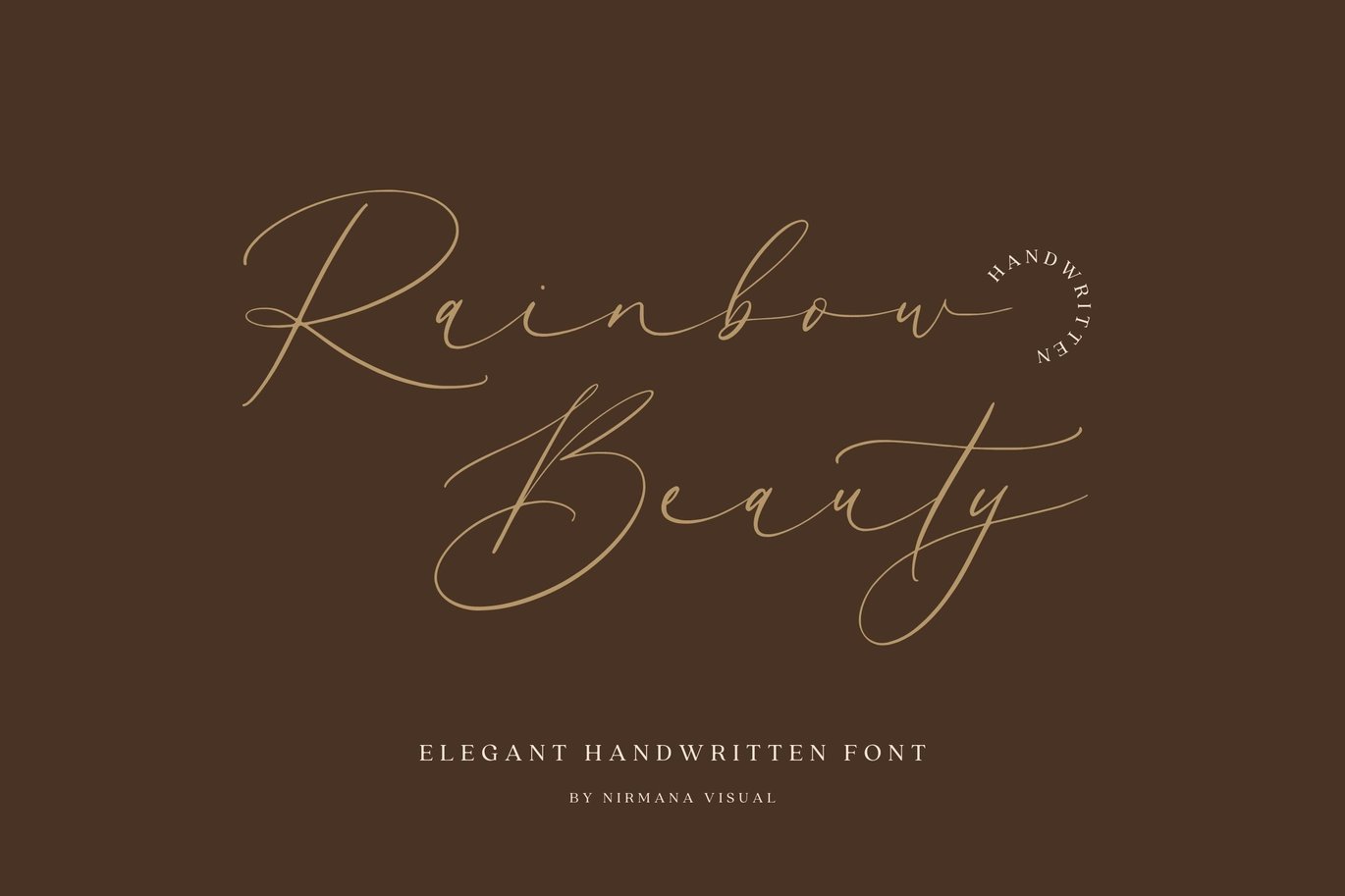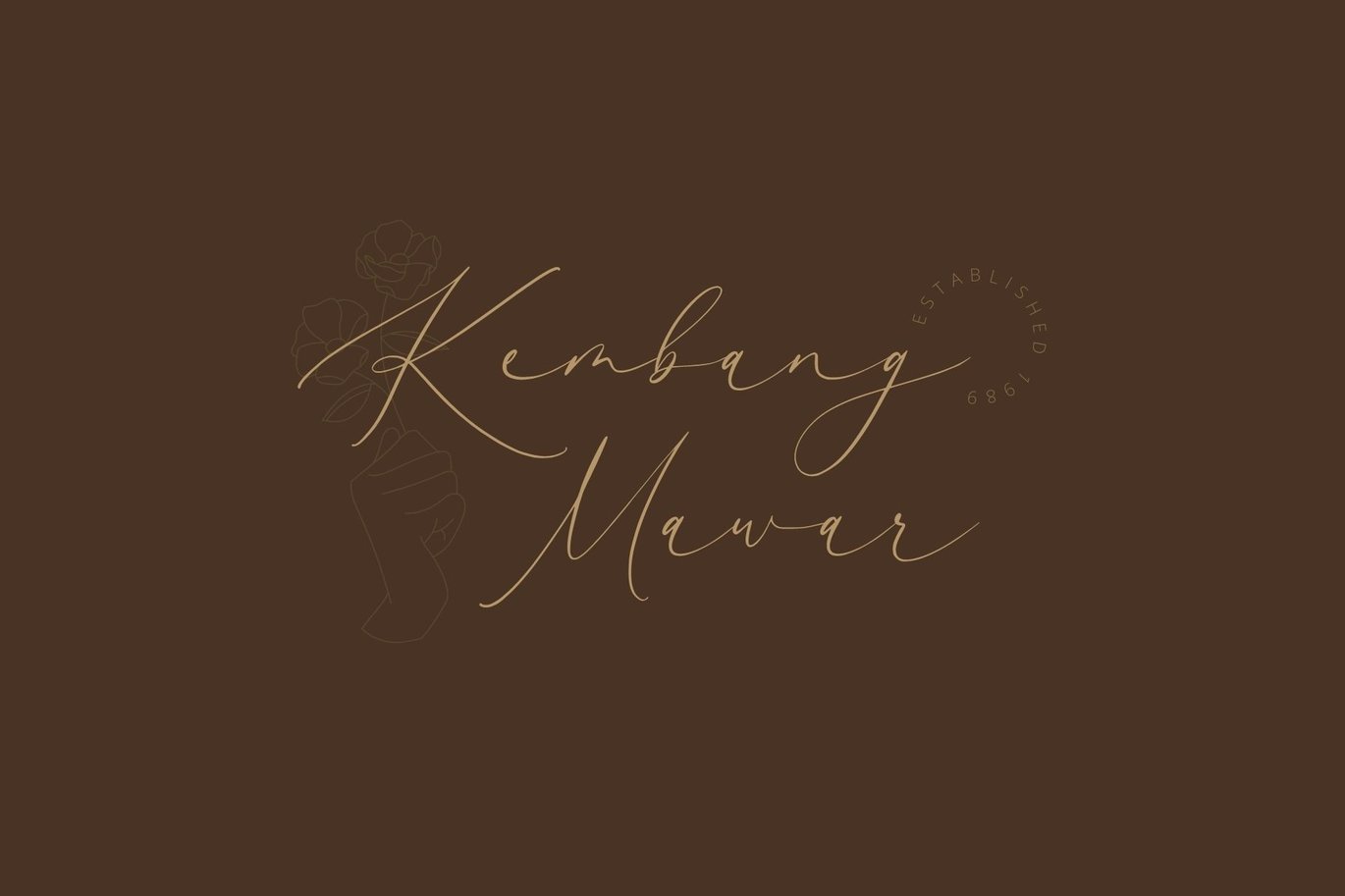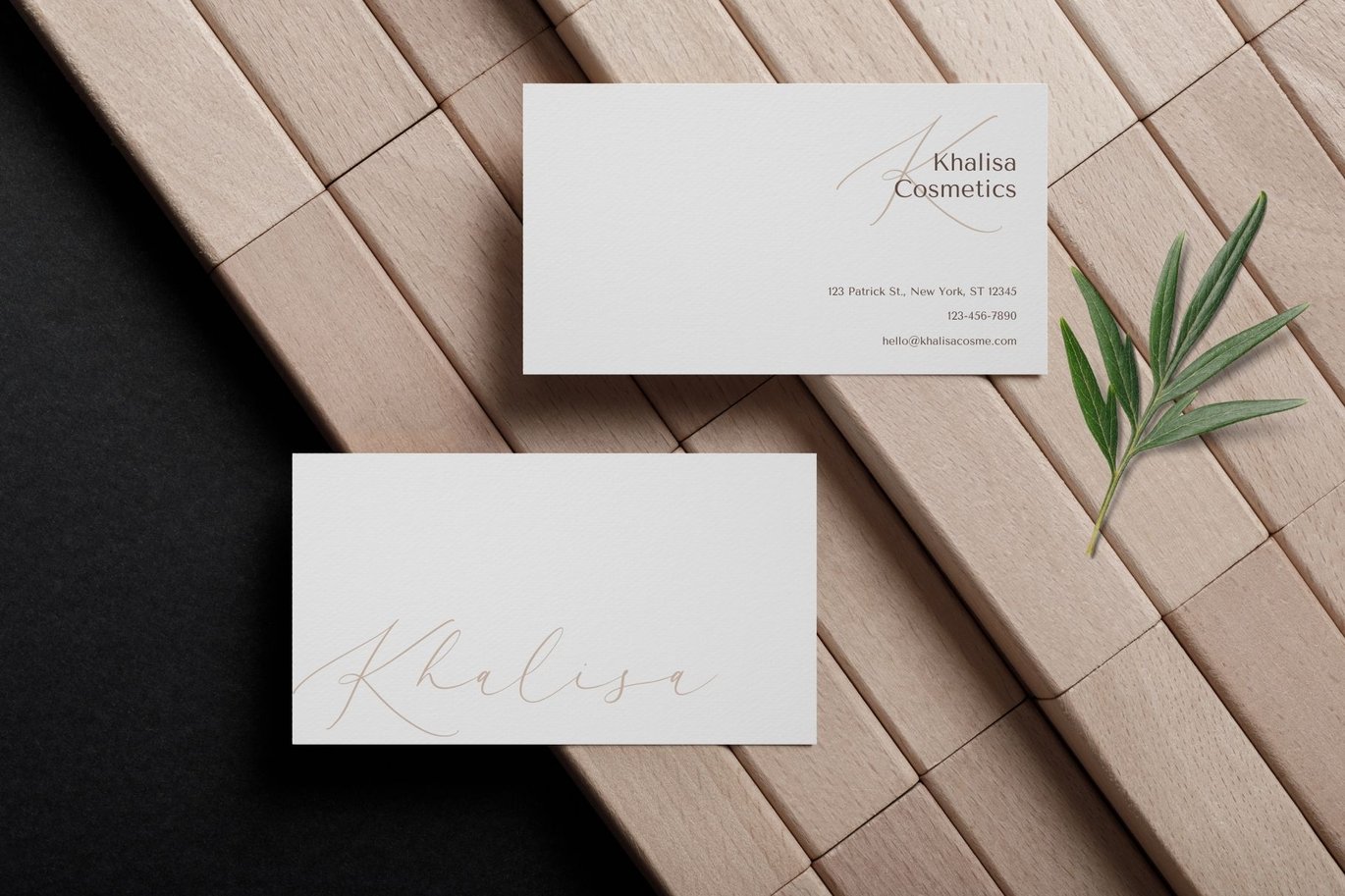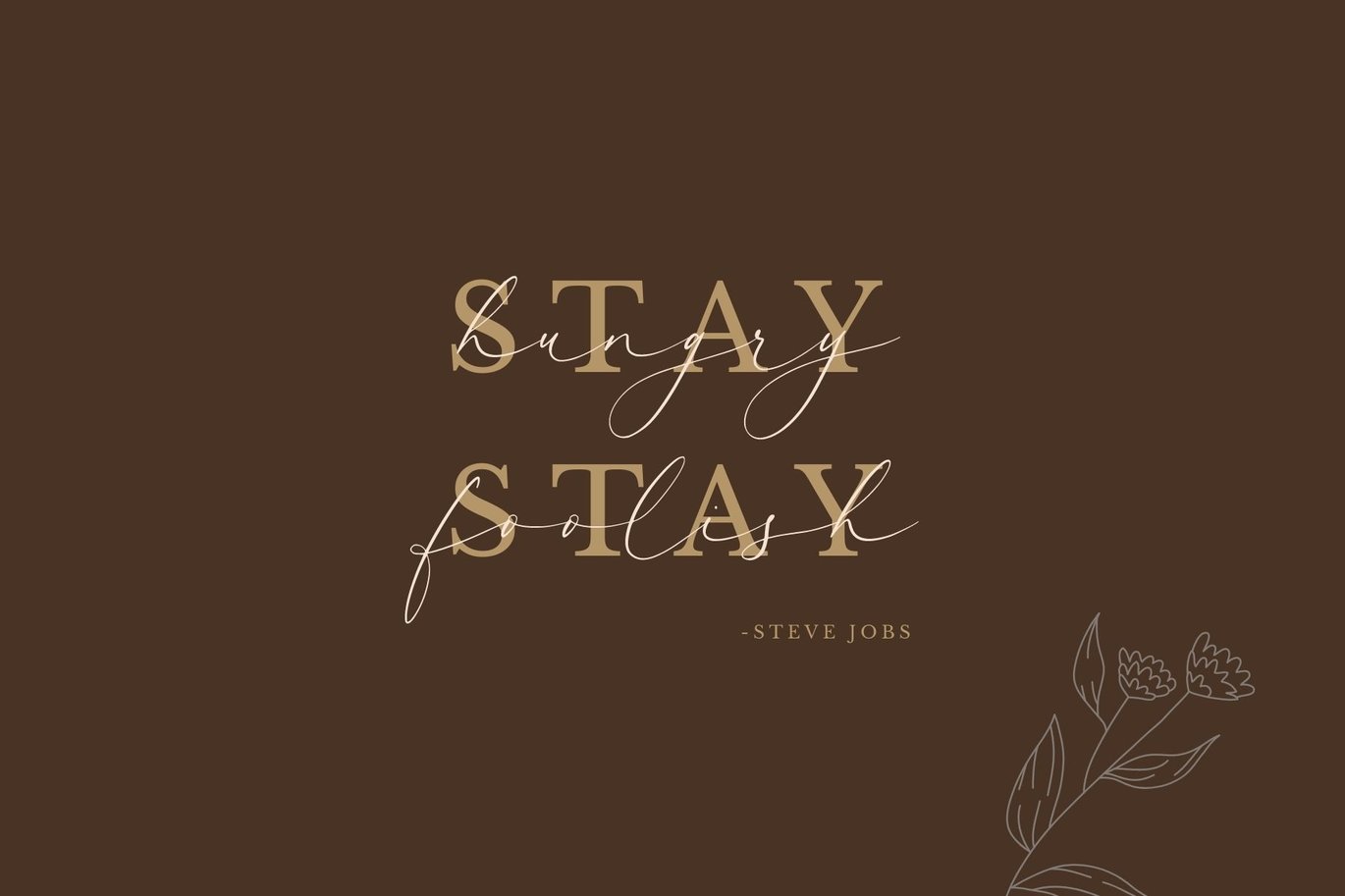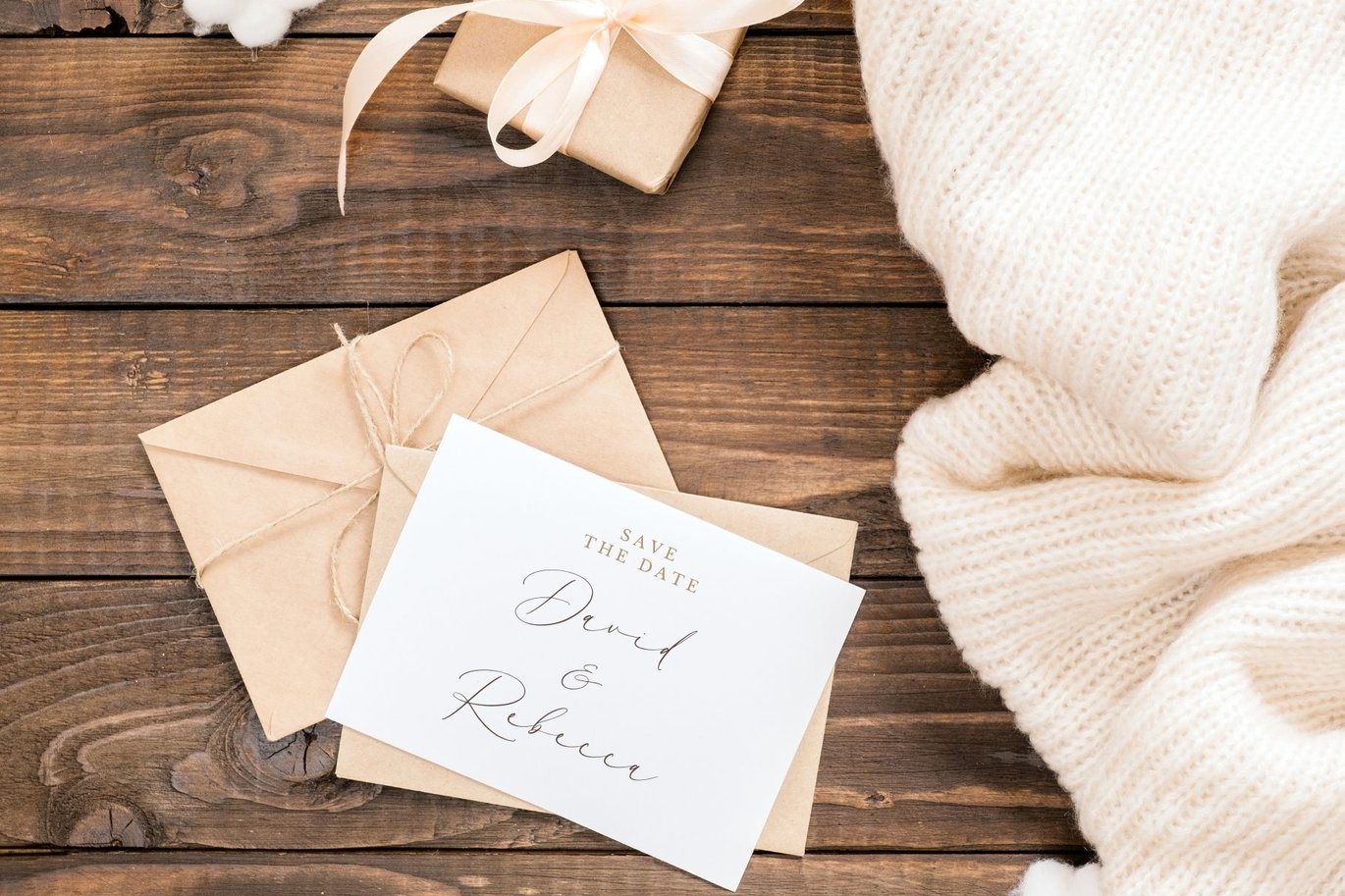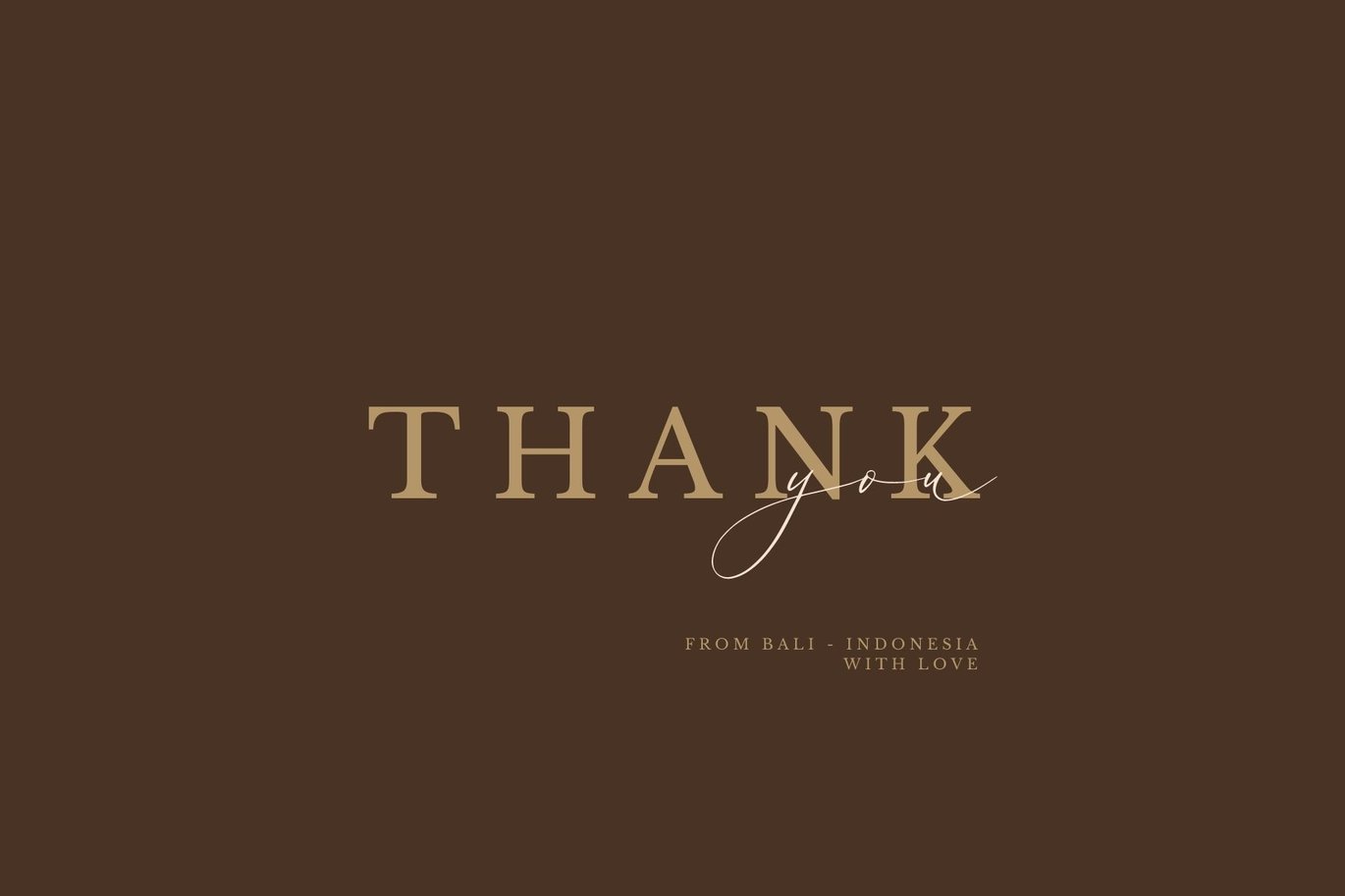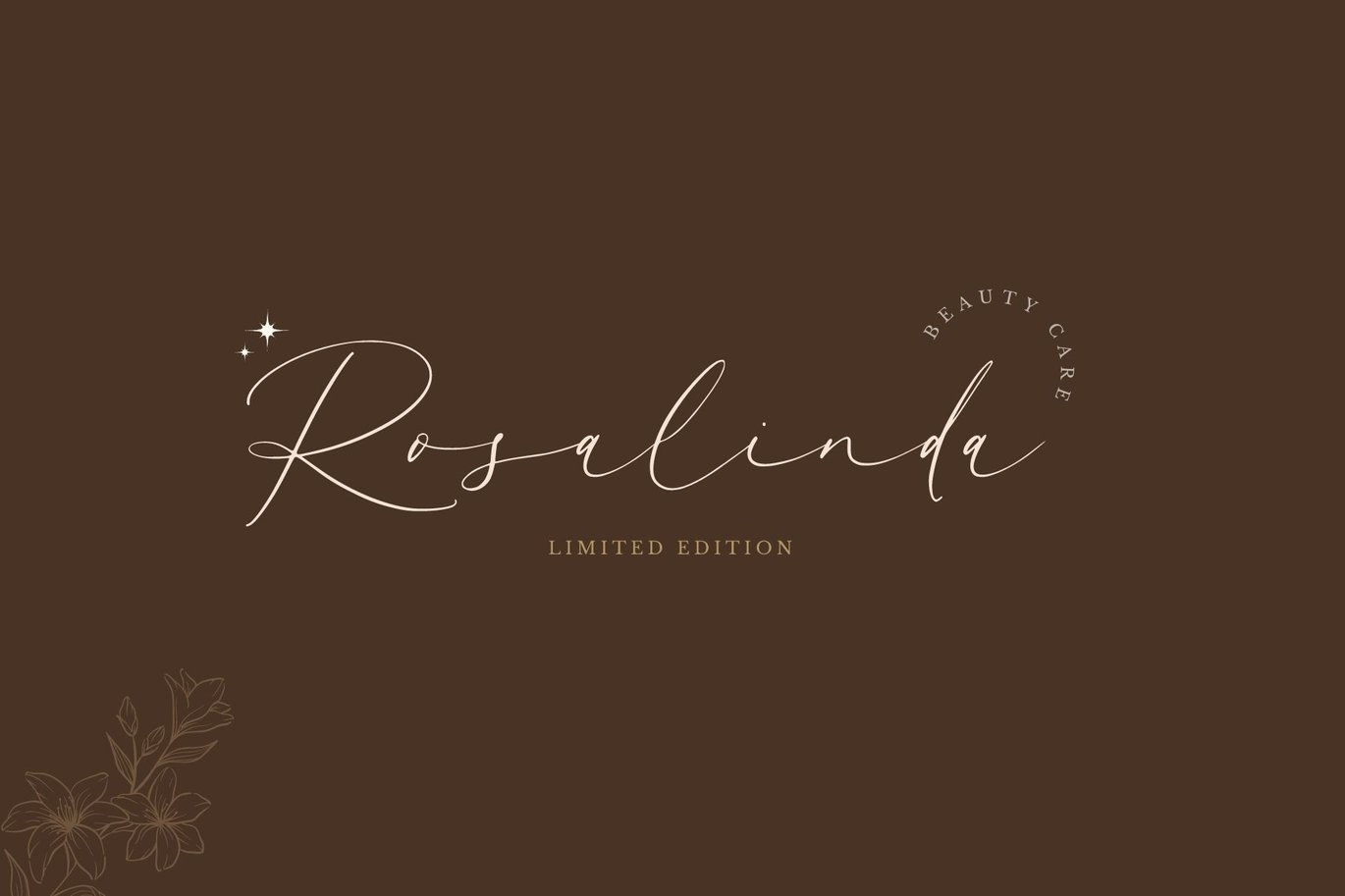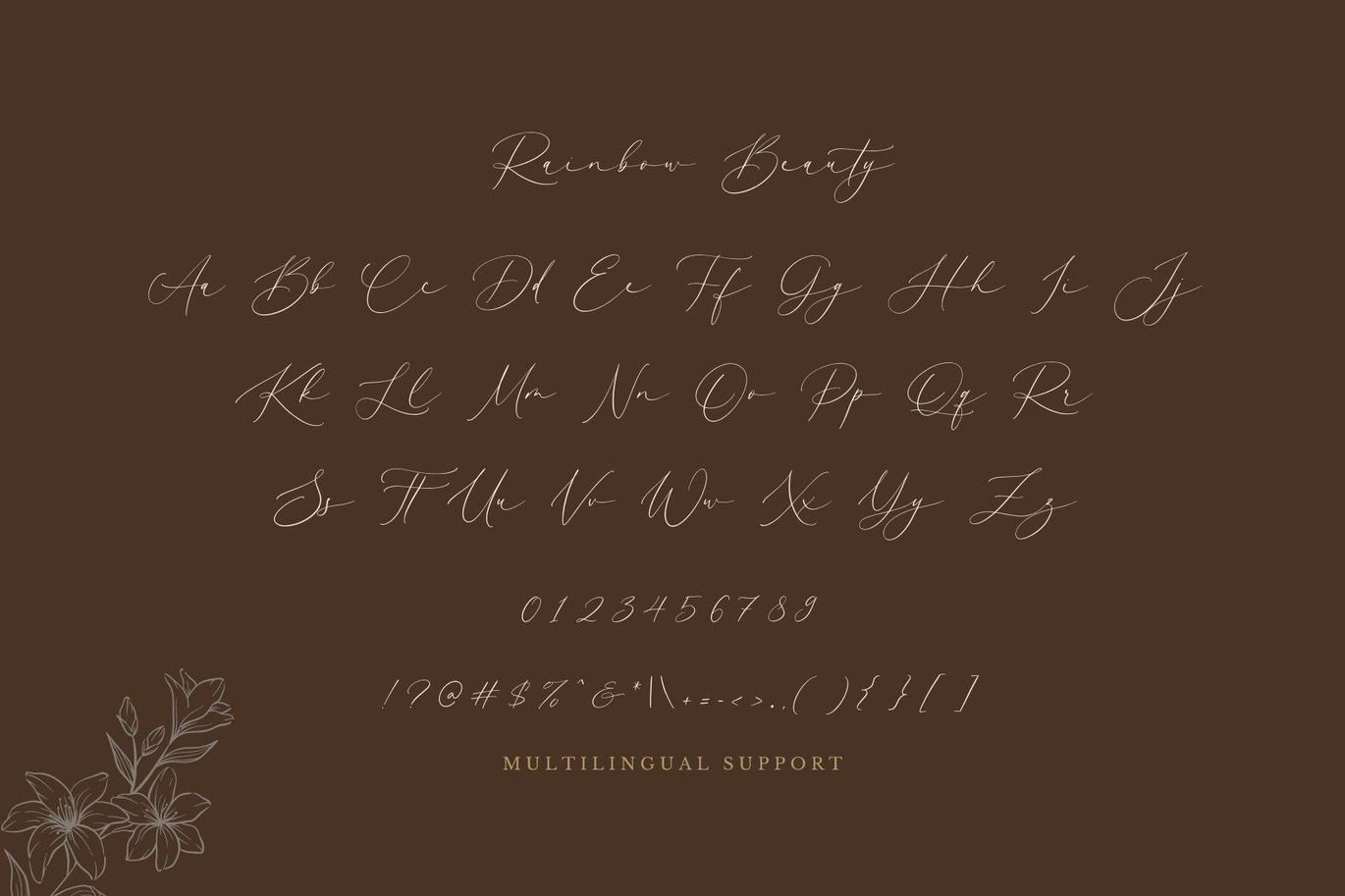
Rainbow Beauty – Wedding Font
Rainbow Beauty is a Beautiful script font carefully created with a touch of romantic.
This is a beautiful combination of timeless elegance and authentic calligraphy
-Multilingual Support